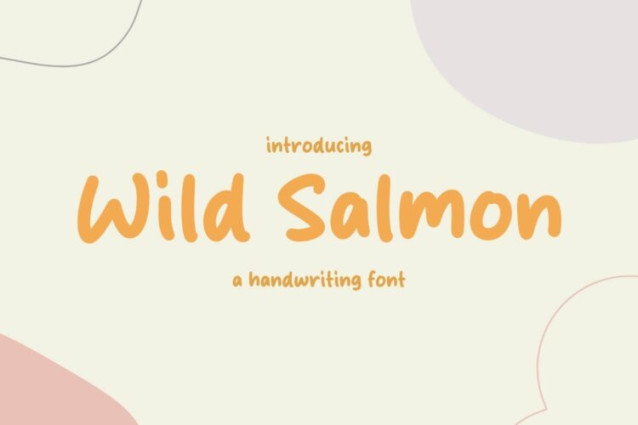
Wild Salmon Font
Wild Salmon Font a sweet and friendly handwritten font. Cute and fun, this font is ideal for writing wedding invitations, cards, or any other design that might need a fun touch!